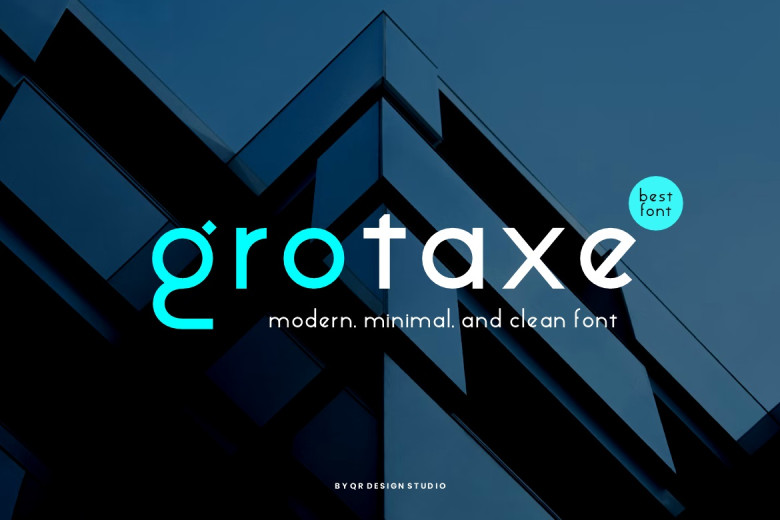
Grotaxe Font
Grotaxe is loud and confident sans serif typeface. In any case, this font will turn into your fonts’ collection’s crown, as it provides the chance to make any work outstanding.
Grotaxe Sans Serif Font